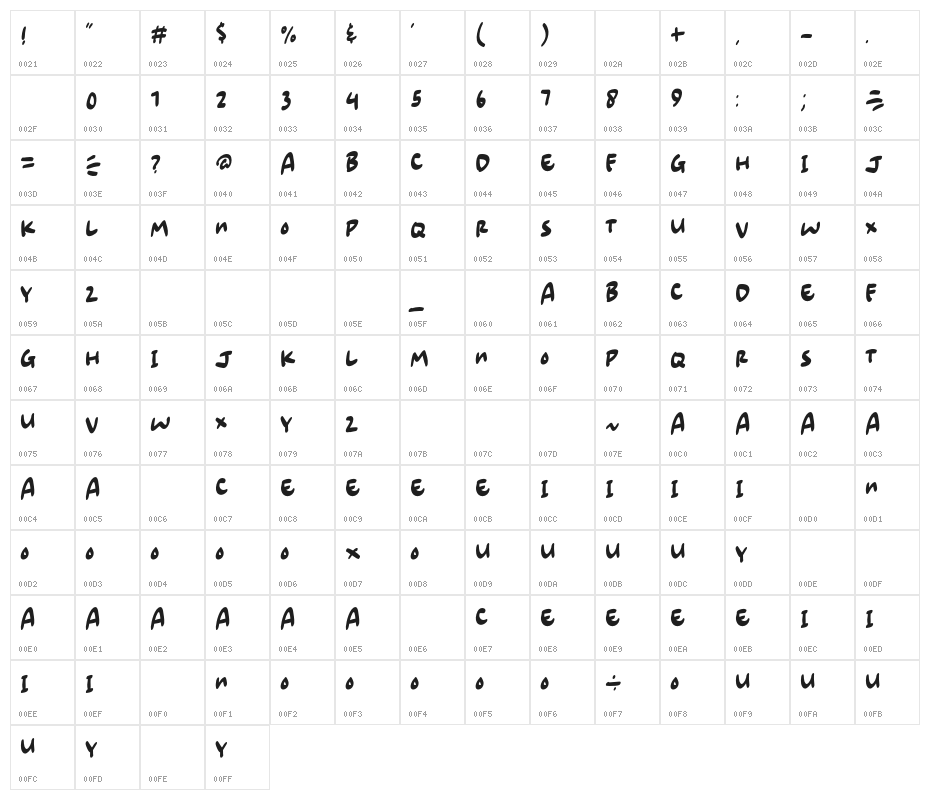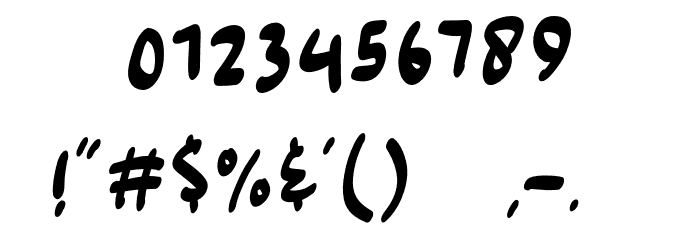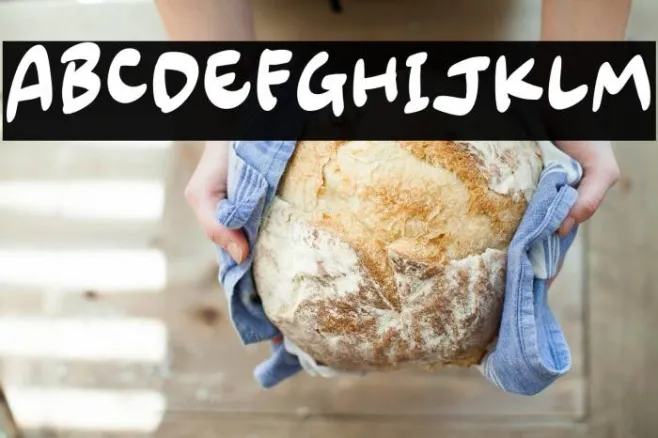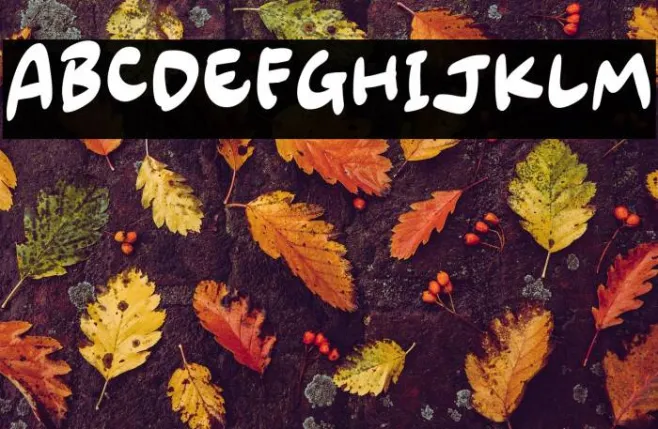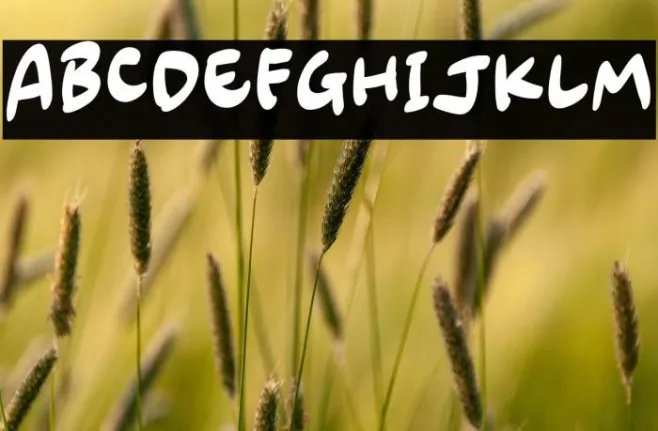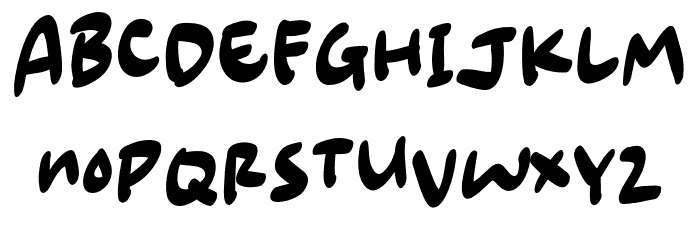
Amazing Swash Font
| Gesamtstil | Playful, Casual |
| Anwendungsfall | Headlines, Logos, Invitations |
| Vorgeschlagene Projekte | Ideal for greeting cards, invitations, posters, and branding that requires a personal and lively touch. |